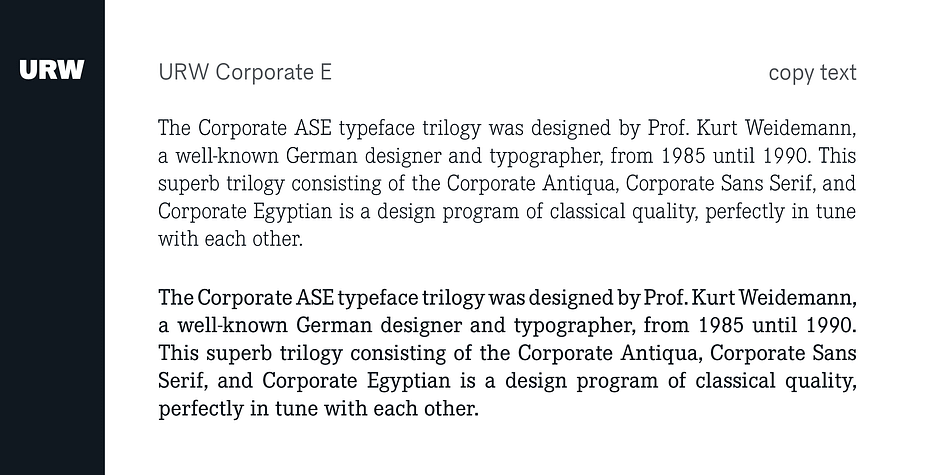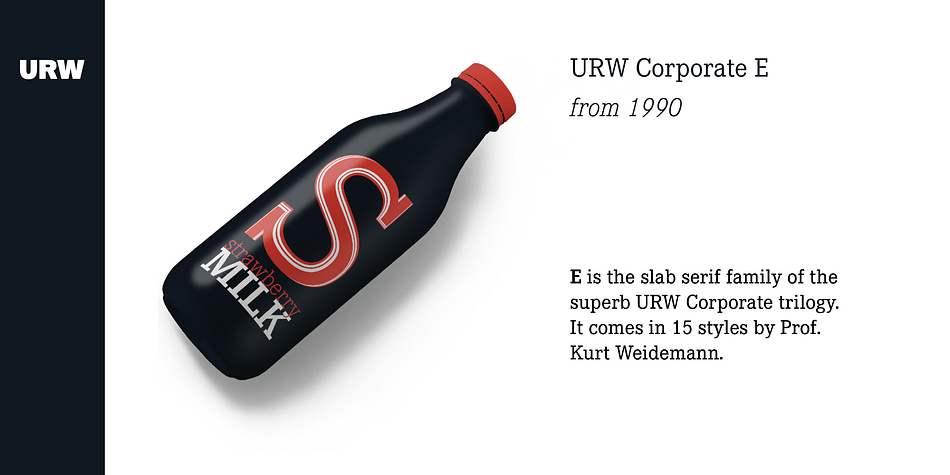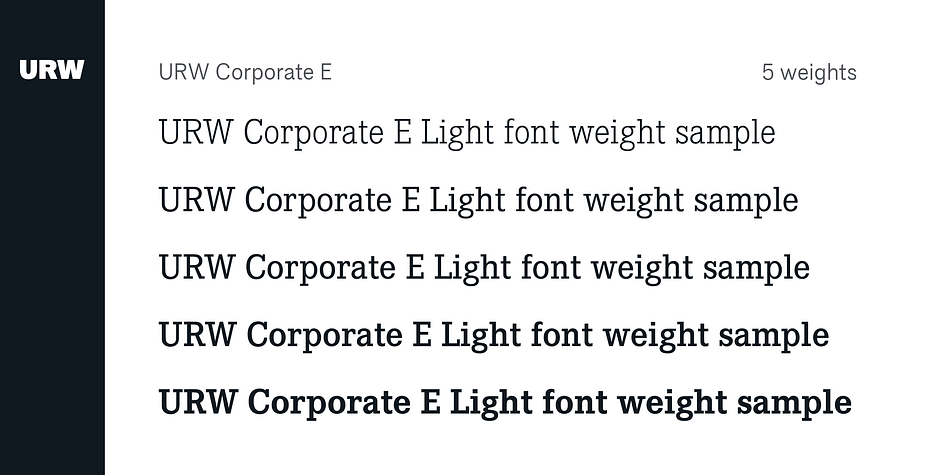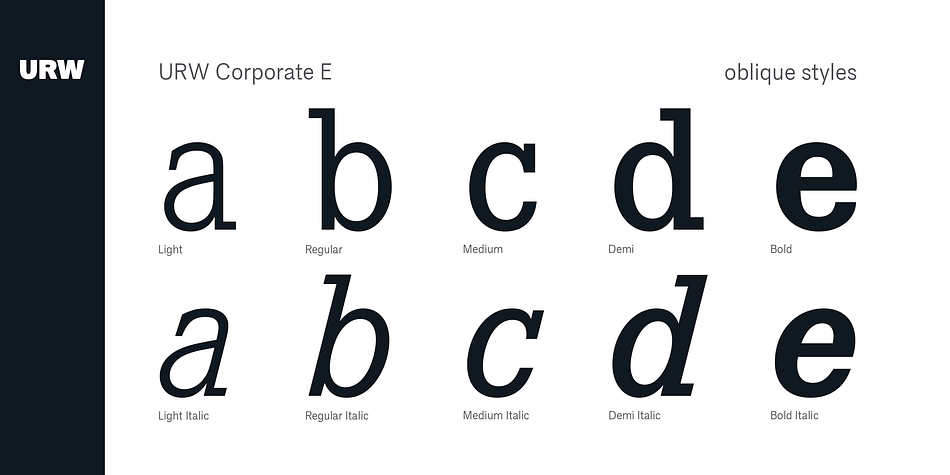
Designed by Kurt Weidemann, URW Corporate E is a display slab and slab serif font family. This typeface has fifteen styles and was published by URW Type Foundry.
The Corporate ASE typeface trilogy was designed by Prof. Kurt Weidemann, a well-known German designer and typographer, from 1985 until 1990. This superb trilogy consisting of the Corporate Antiqua, Corporate Sans Serif, and Corporate Egyptian is a design program of classical quality, perfectly in tune with each other. Weidemann says: ‘My ASE trilogy, quite like triplets, is in perfect harmony and covers all needs of modern typography!’ URW digitized the ASE for DaimlerChrysler and Prof. Weidemann and is the exclusive licencing agent for this outstanding and extremely popular typeface program.